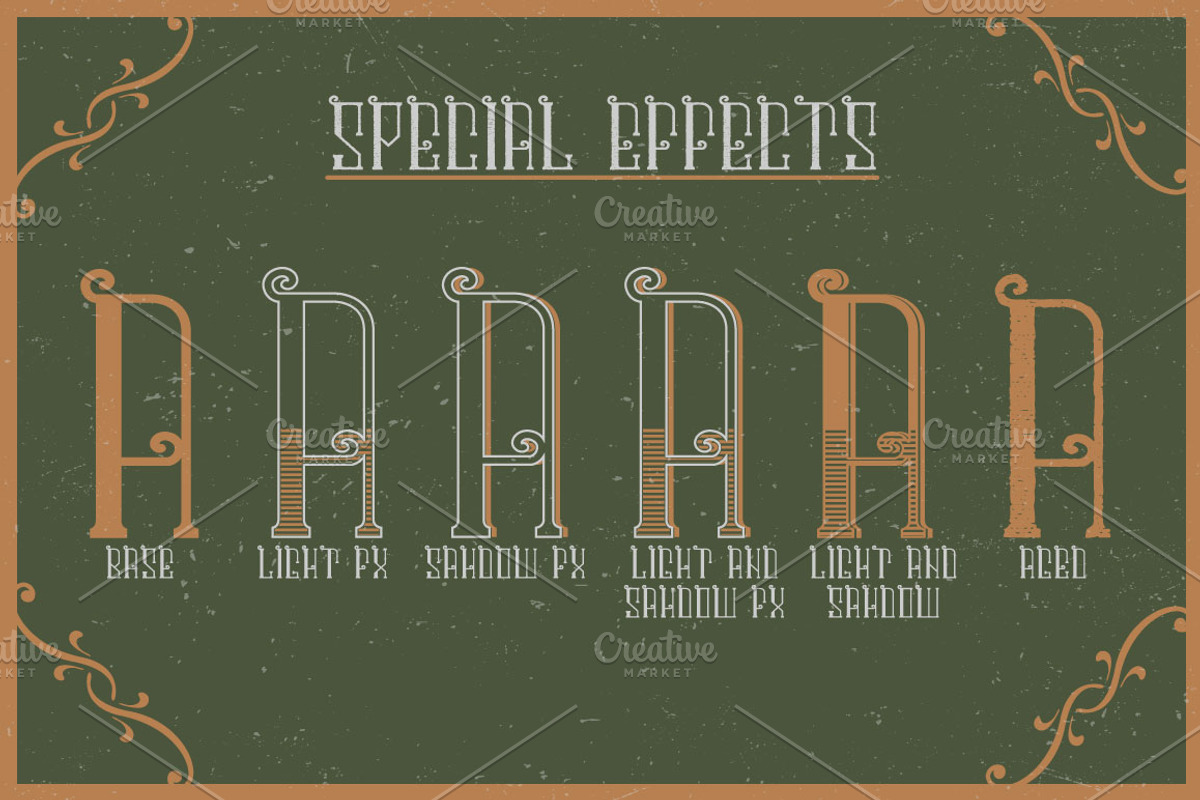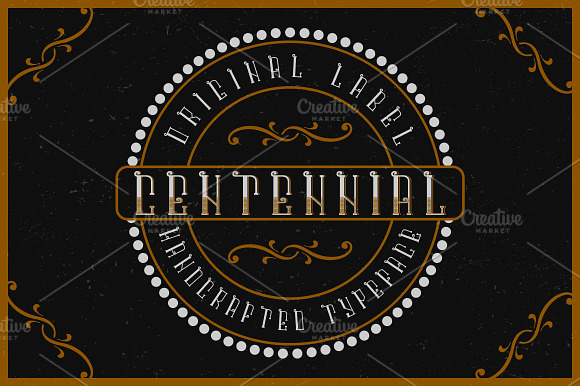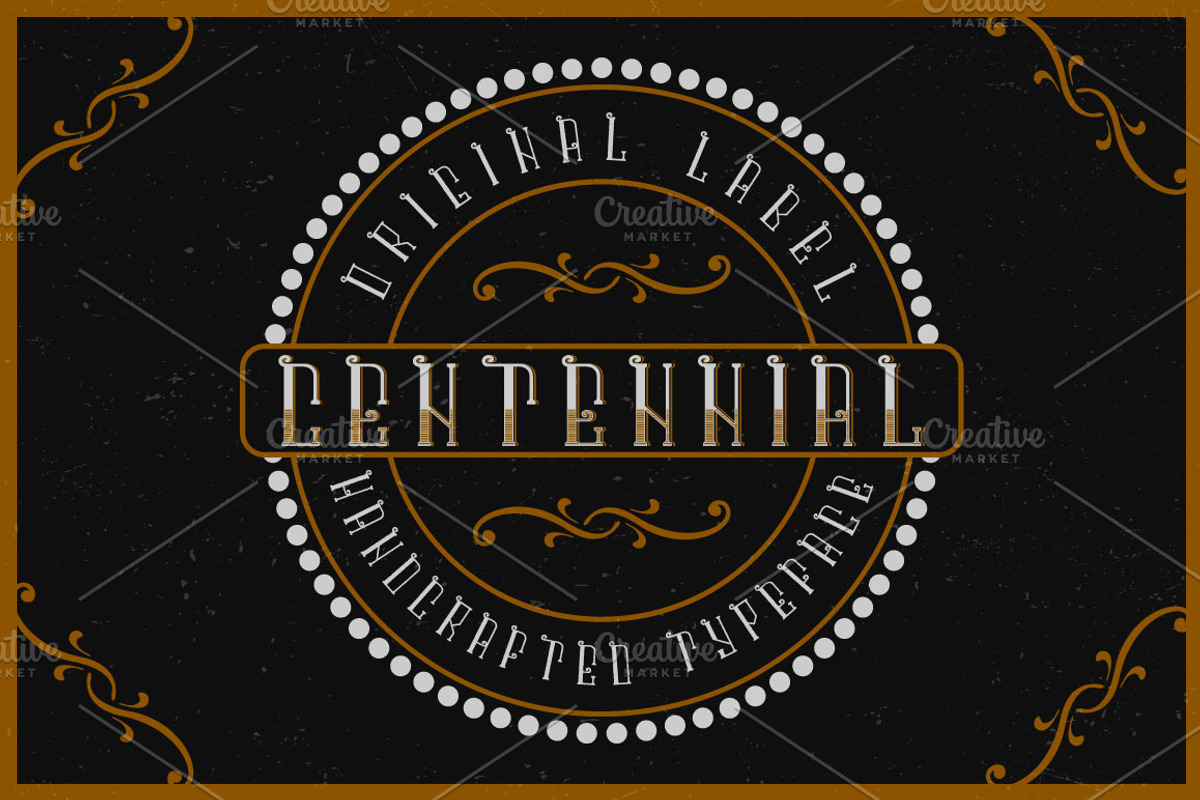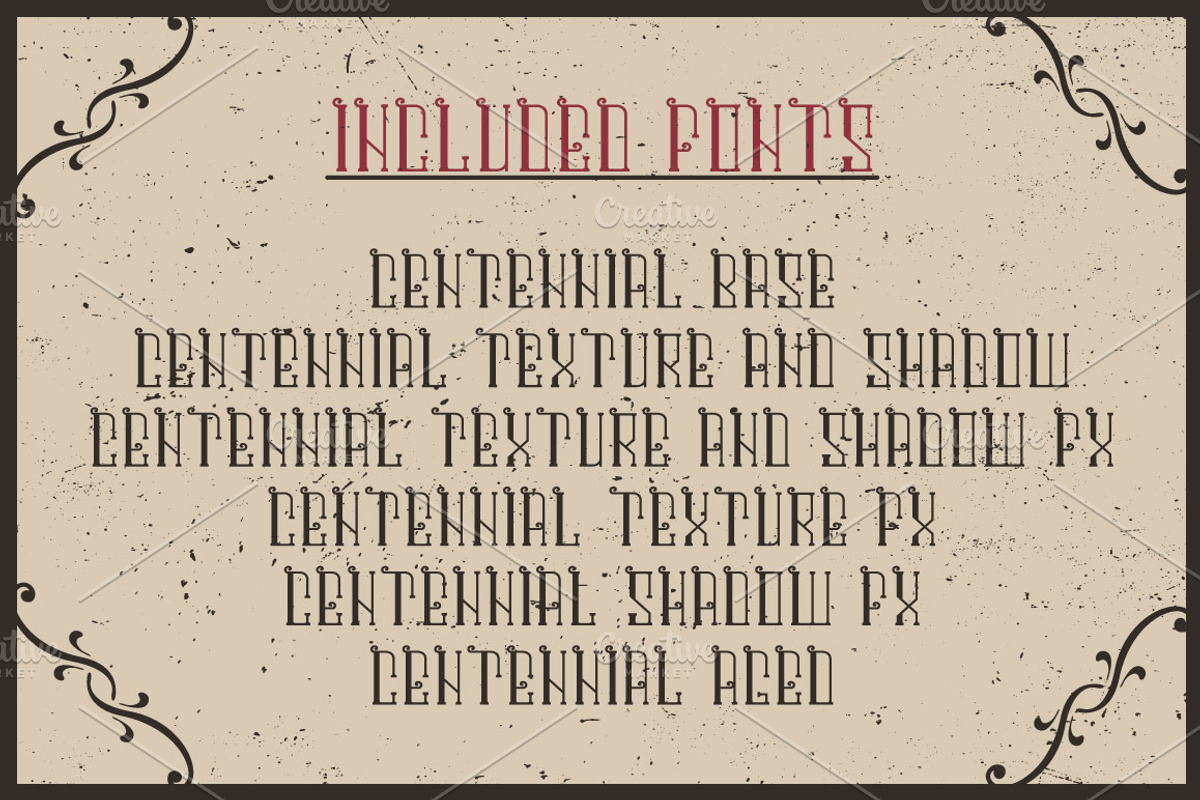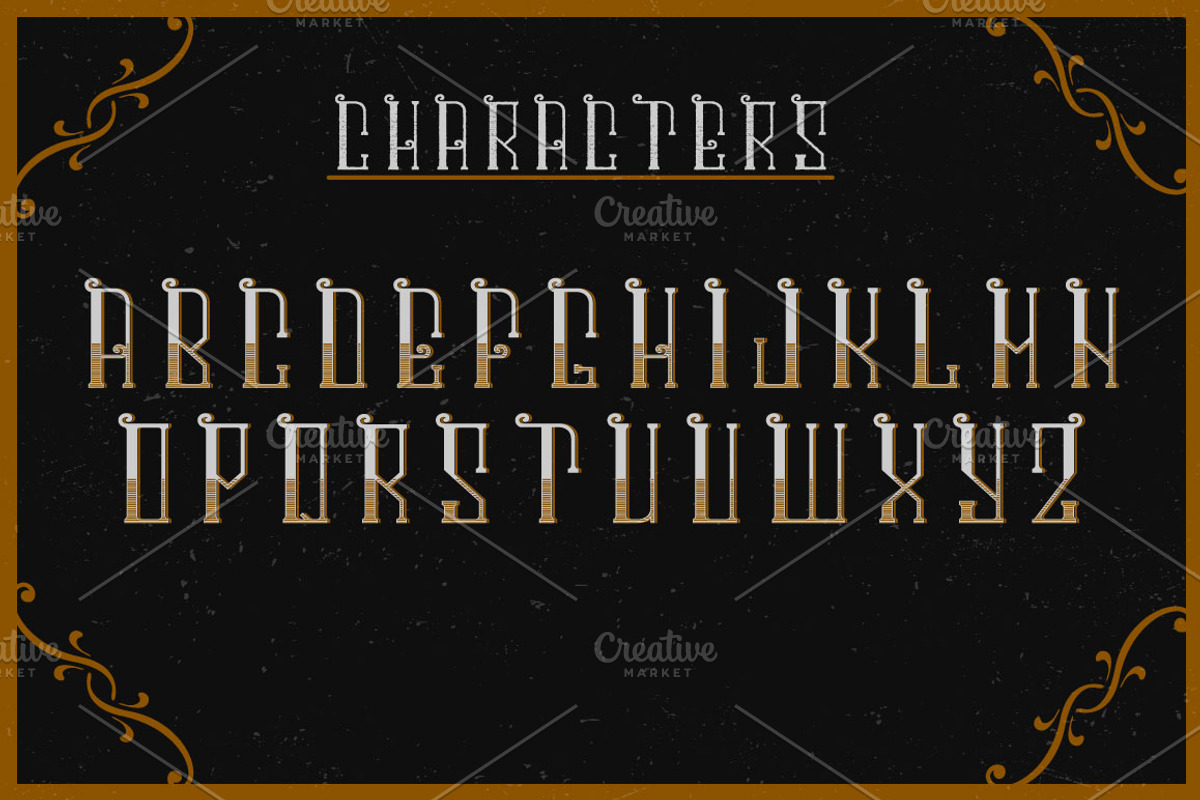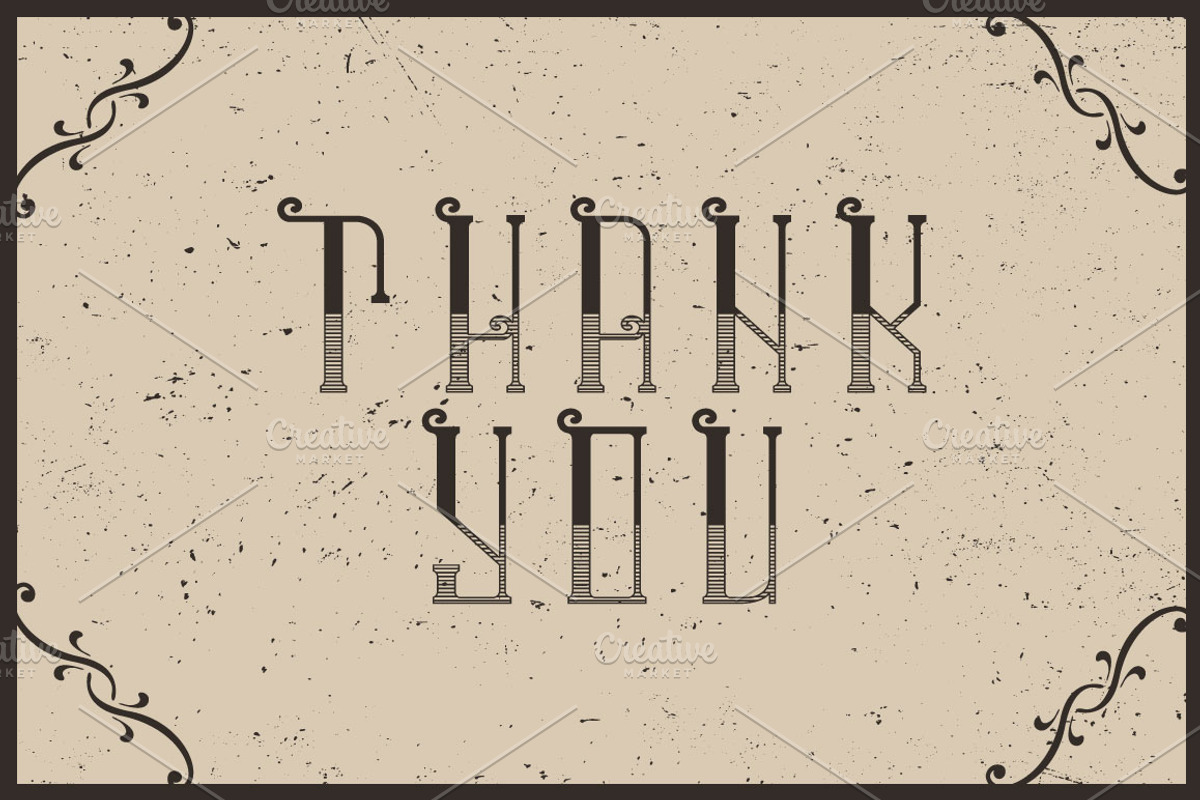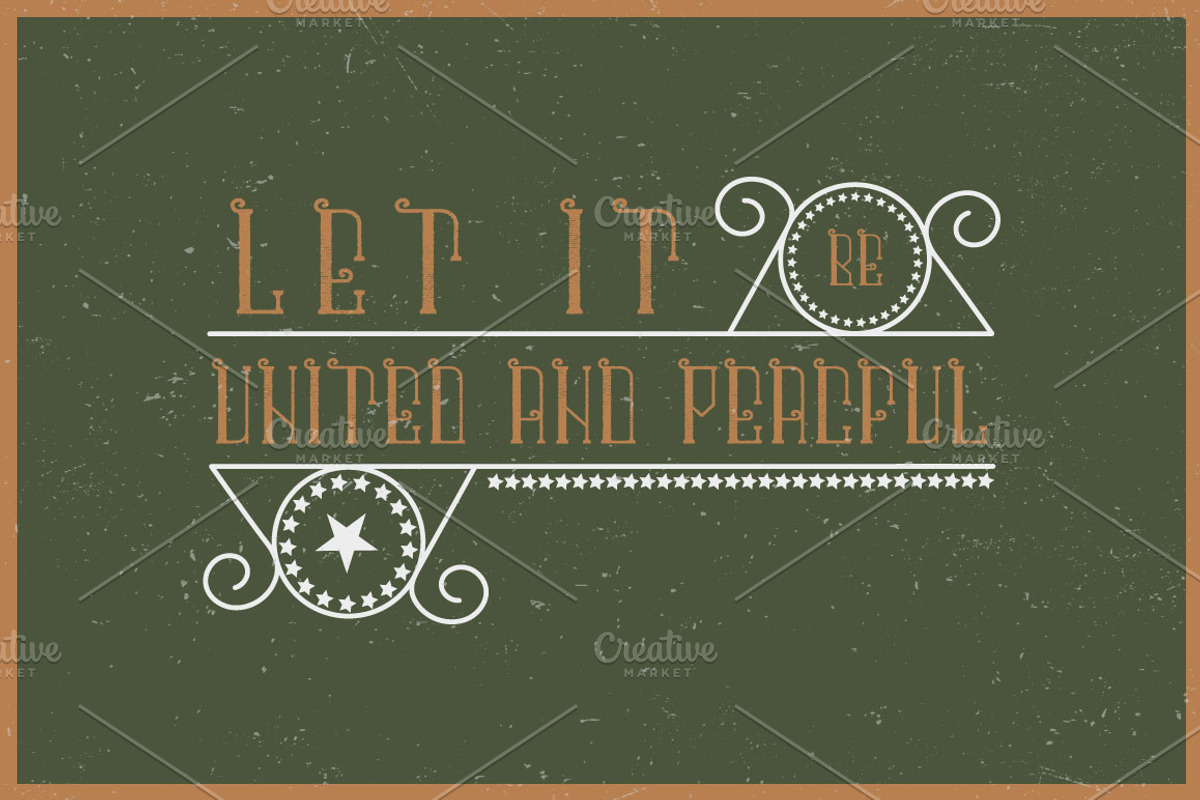
Centennial label font
Introducing a vintage label typeface named "Centennial". It's made in strong and vintage label style. Typeface looks great on any label designs and t-shirts.
5 fonts in complect with special effects + aged version
You can mix color of base font, texture and shadow effect (look at 4th screenshot)
Centennial label font by Heatherinsane fits naturally into Branding, posters, packaging, typography.